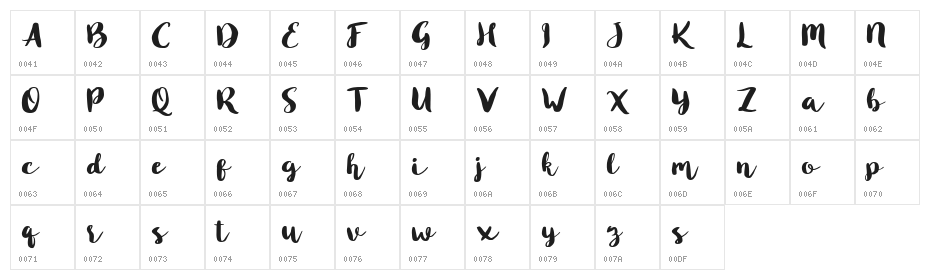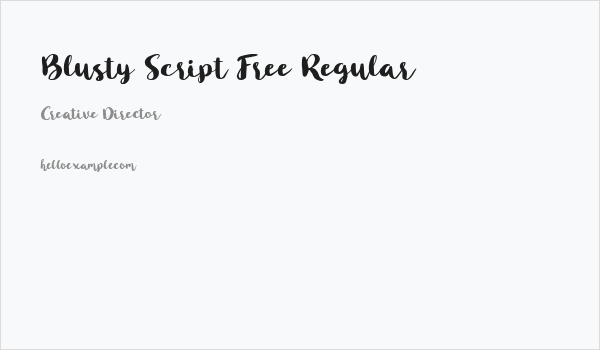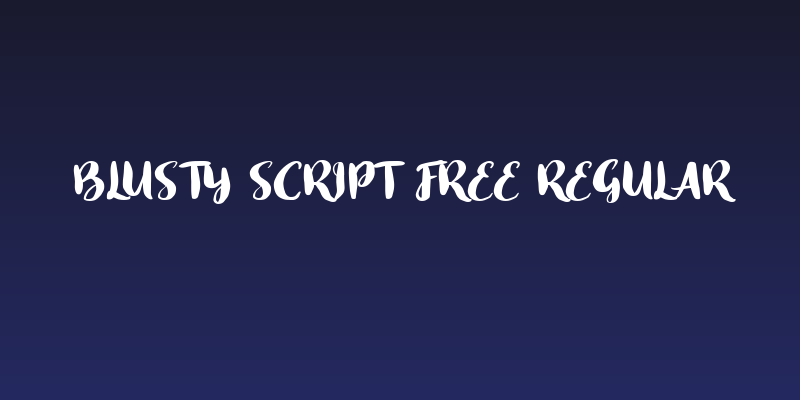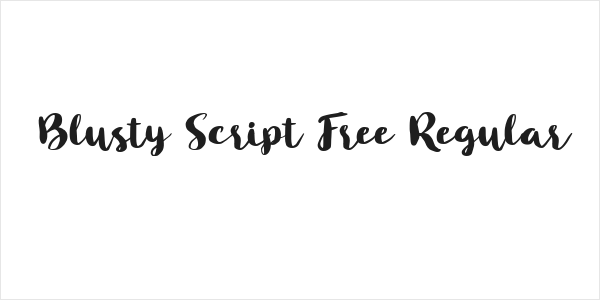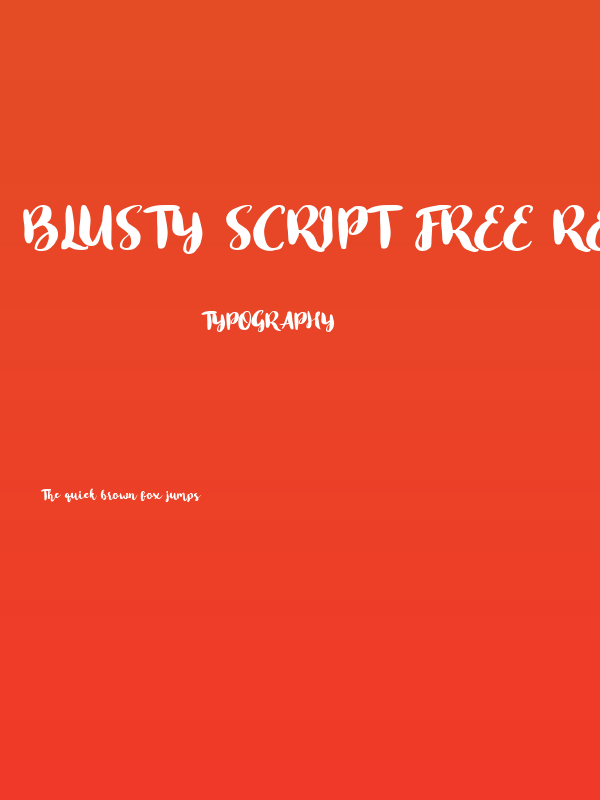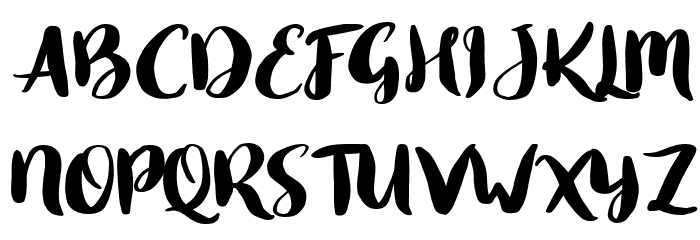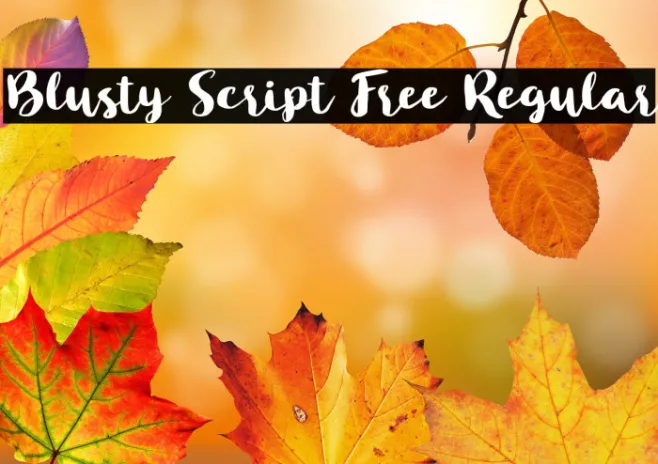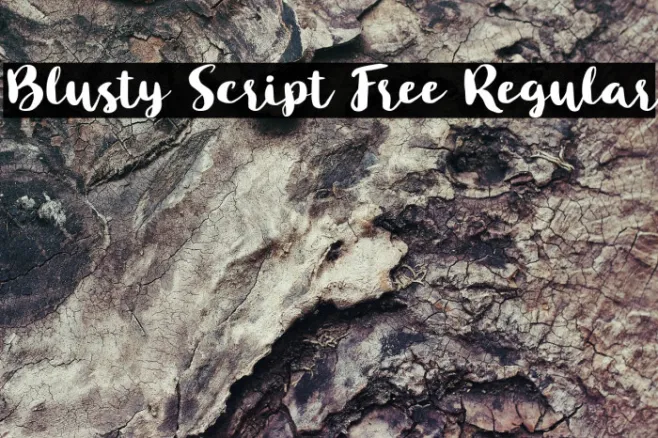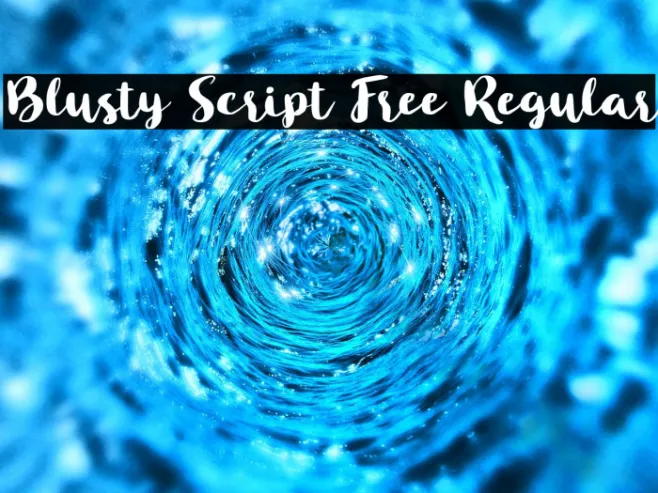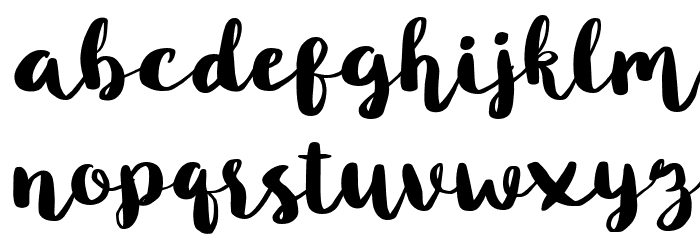
Blusty Script Free Regular Font
Blusty Script Free Regular Description
This script font exudes a playful and artistic flair, characterized by its flowing, cursive letterforms. The strokes are bold and expressive, with a dynamic rhythm that suggests movement and creativity. Each character is uniquely crafted, with varying stroke widths that add to its lively appearance. The uppercase letters are particularly striking, with sweeping curves and loops that enhance the font's decorative nature. The lowercase letters maintain a consistent style, complementing the uppercase with their own elegant swirls. This font is perfect for projects that require a touch of whimsy and elegance, such as invitations, greeting cards, or branding for creative businesses.